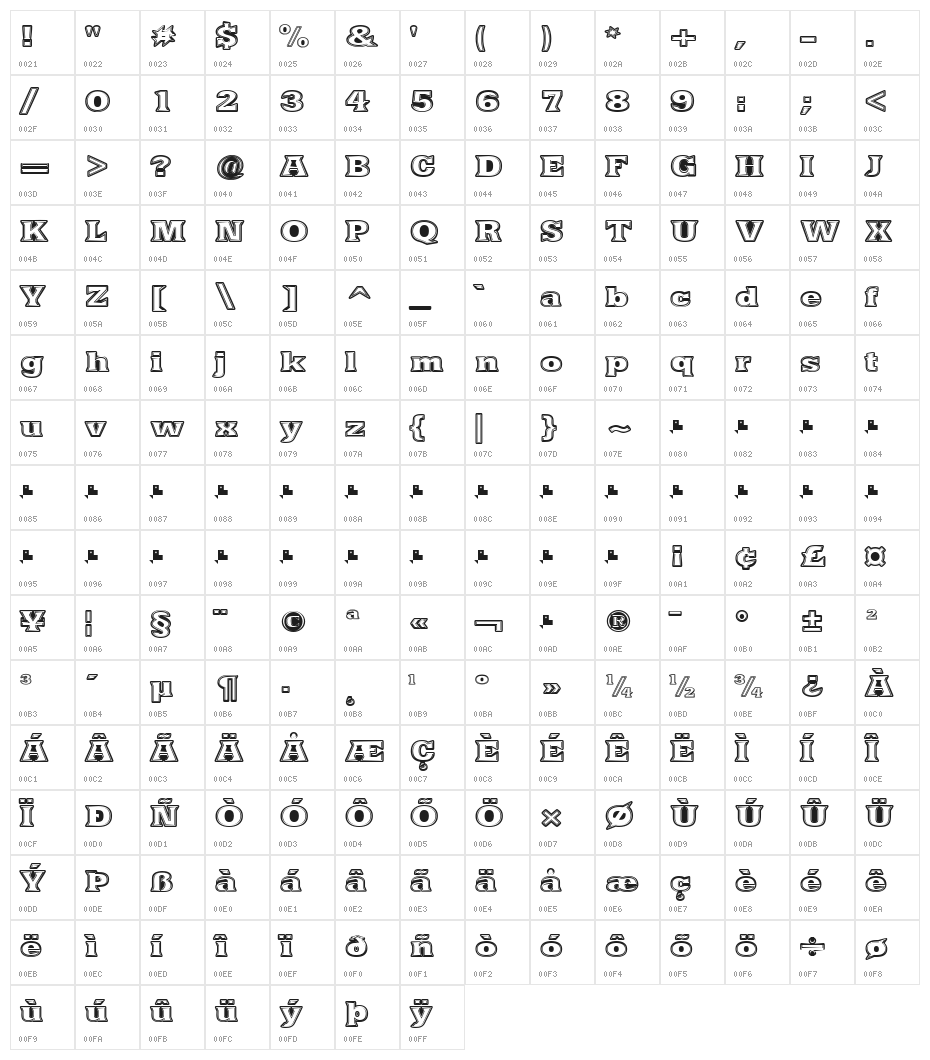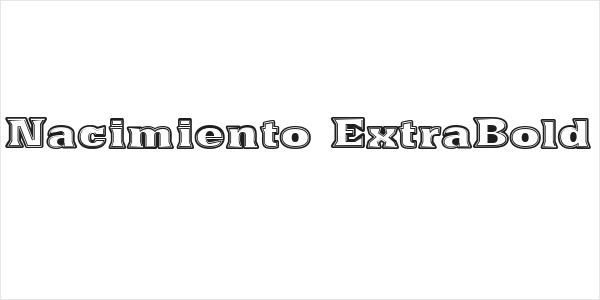
Nacimiento ExtraBold Font
Nacimiento ExtraBold Description
This font features a bold and impactful design with a strong presence. Each character is outlined, creating a striking visual effect that enhances its readability and appeal. The uppercase and lowercase letters maintain a consistent style, with a slight slant that adds a dynamic feel. The numbers and special characters are equally bold, ensuring uniformity across all text elements. This font's design is ideal for making statements, with its thick strokes and outlined style providing a sense of depth and dimension.
| Proposed Projects | Ideal for posters, headlines, logos, and branding materials where a bold statement is needed. |